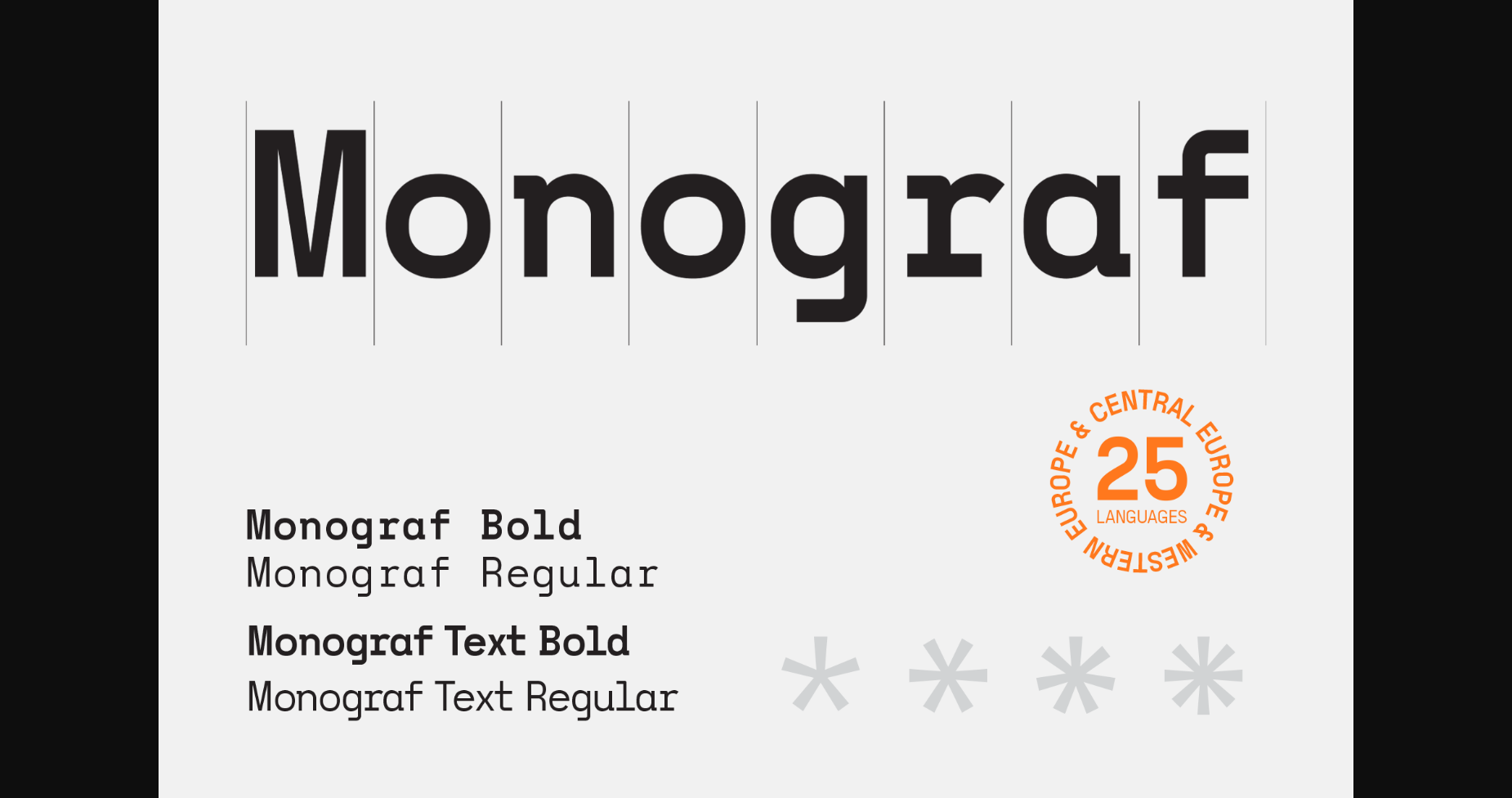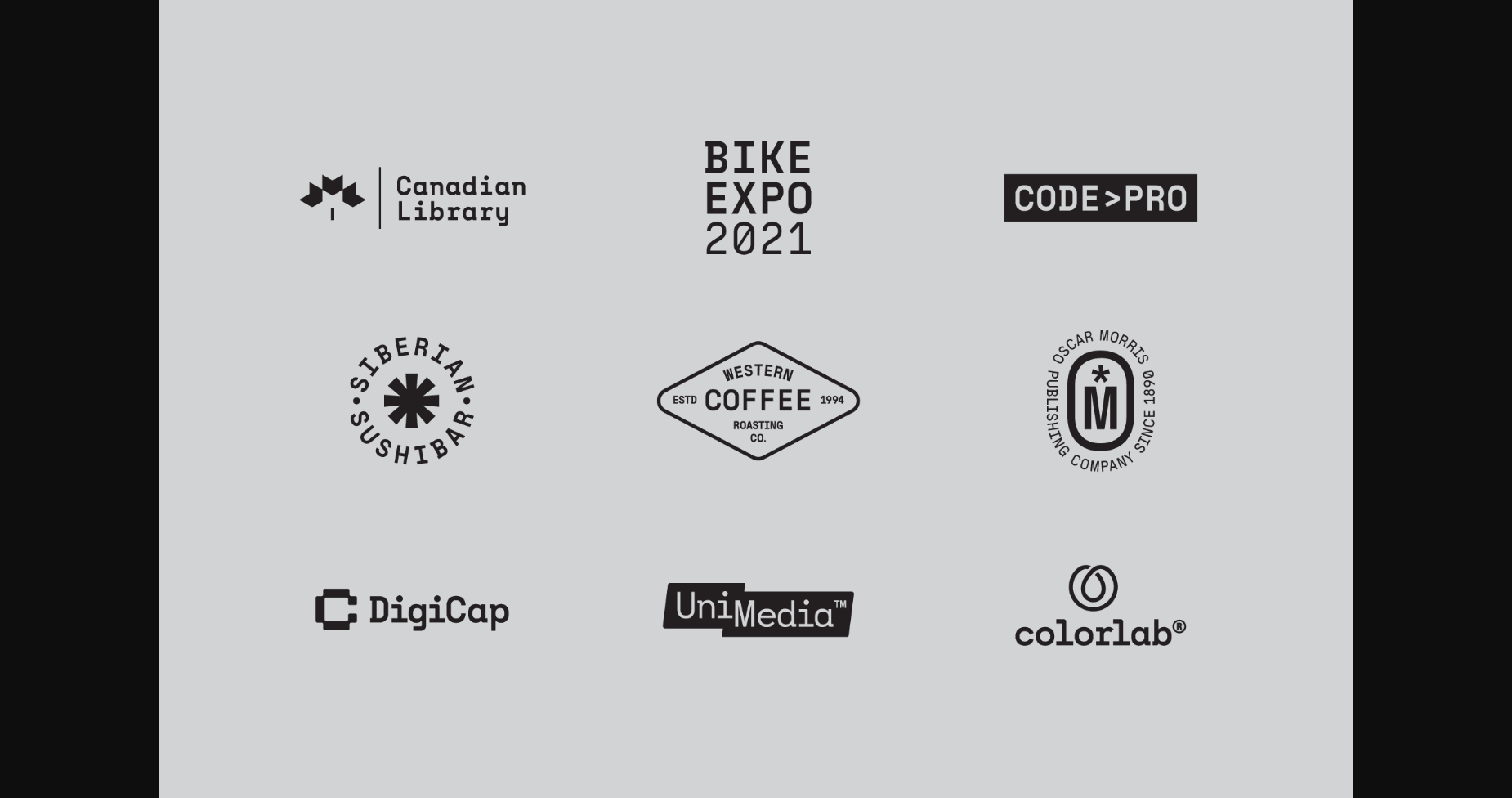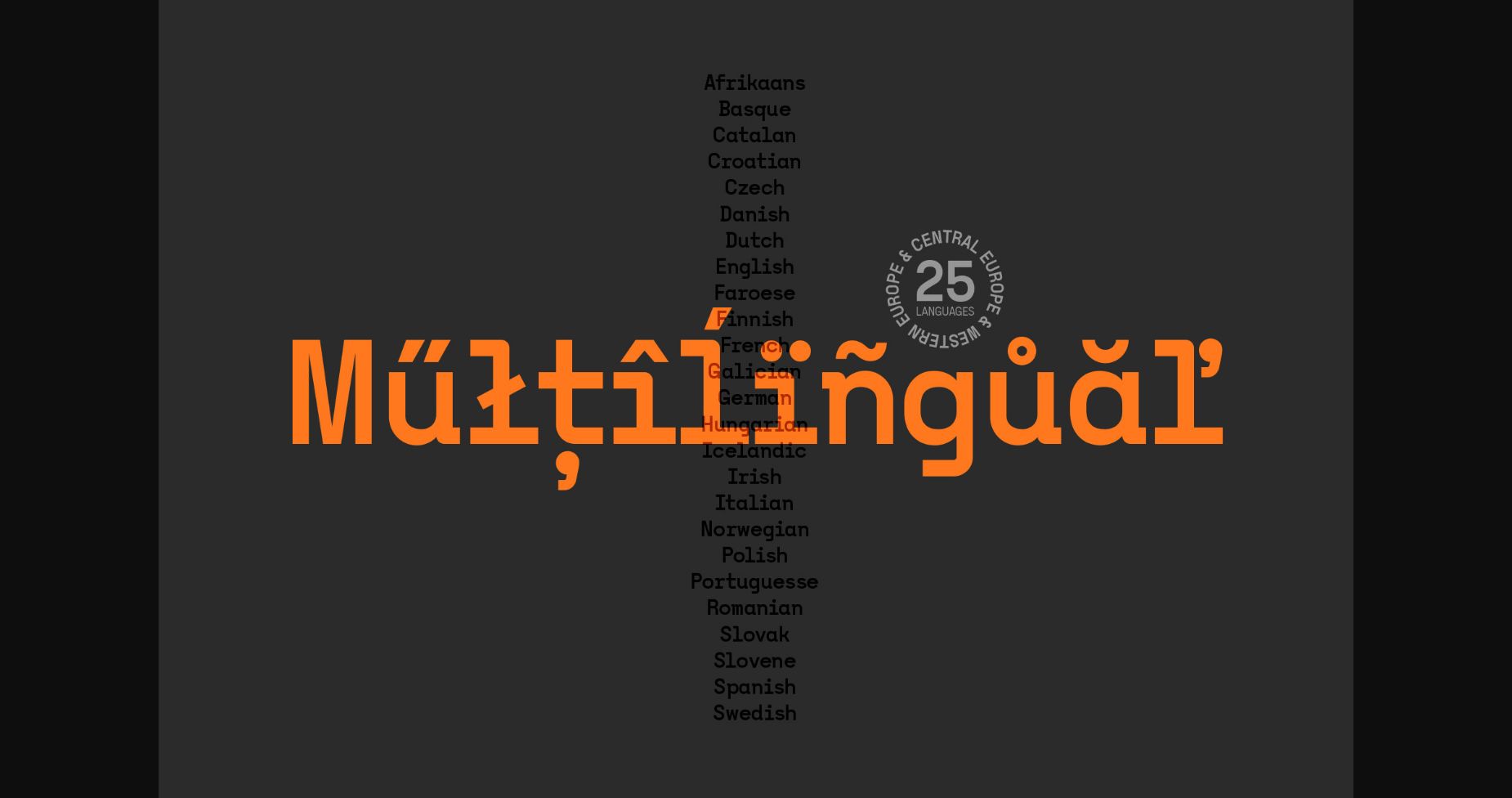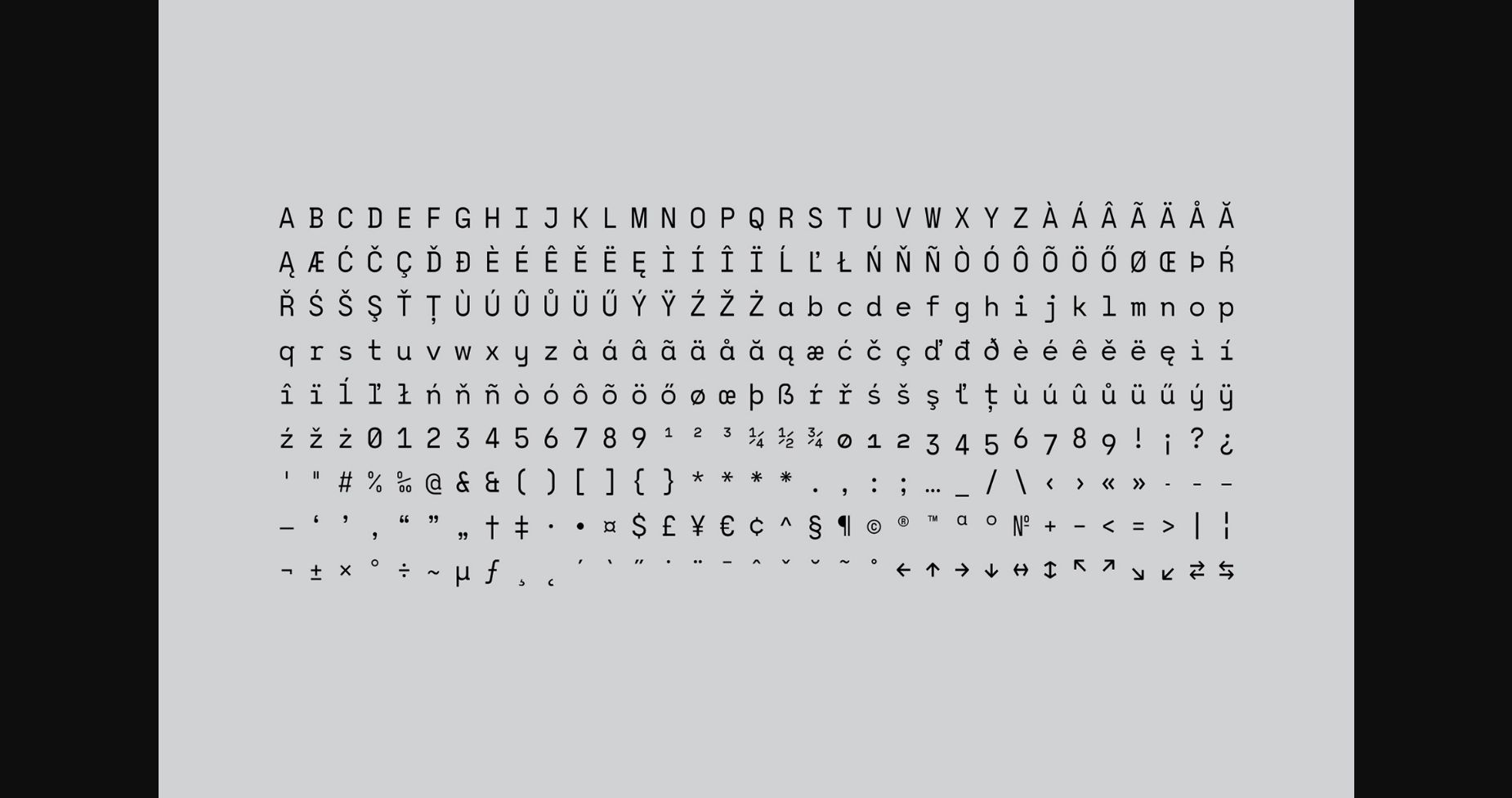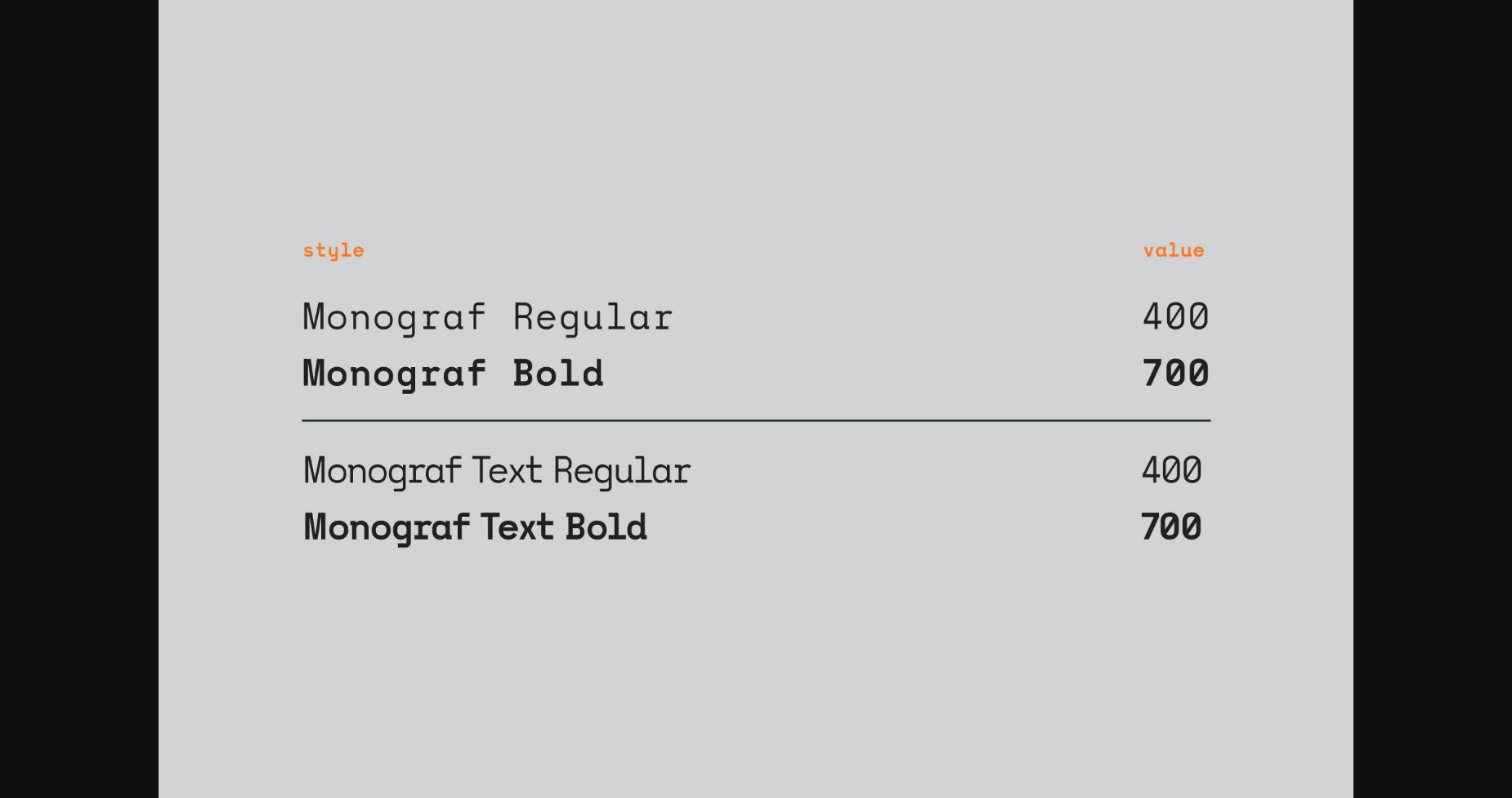
Monograf Font
About Monograf Font
Monograf is a cool and neat sans serif font. No matter the topic, this font will be an incredible asset to your fonts’ library, as it has the potential to elevate any creation.
In today's fast-paced work environment, where digital communication and information consumption are integral to our daily routines, the choice of fonts can significantly impact...